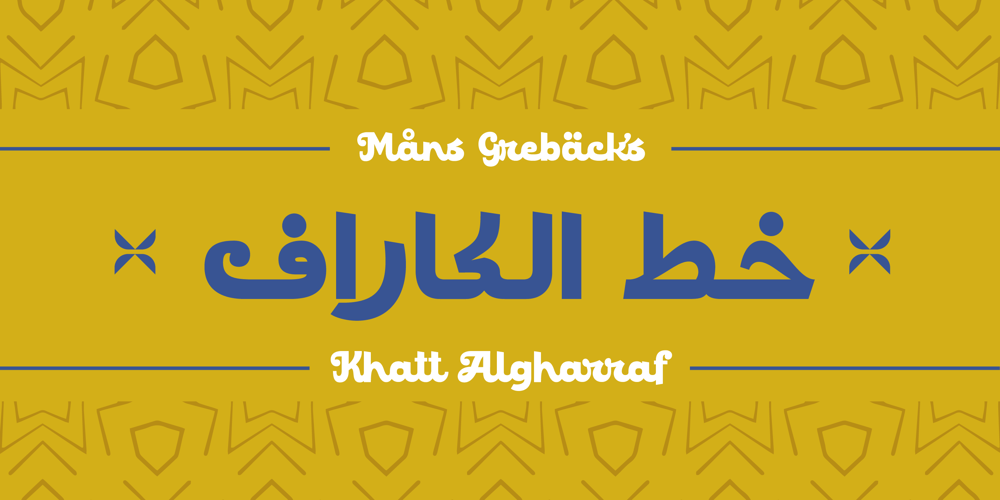
Khatt Algharraf
Khatt Algharraf font
Khatt Algharraf Font Family was designed by Måns Grebäck and published by Mans Greback. Khatt Algharraf contains 4 styles and family package options. Dive into the mesmerizing strokes of Khatt Algharraf, an Arabic typeface that seamlessly blends the age-old beauty of Middle Eastern calligraphy with the dynamism of modern design. With every curve and contour, it tells tales of ancient deserts and bustling souks, yet its sharp, crisp features make it strikingly contemporary.